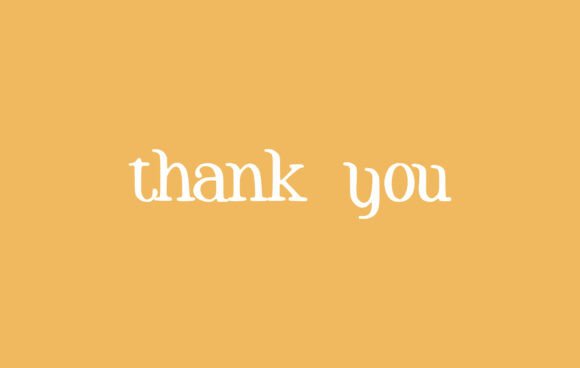
Introducing Zenvector Font: The Ultimate Handwritten Font for Creative Expression
In the world of typography, fonts play a crucial role in conveying emotions, setting tone, and creating visual appeal. Among the numerous fonts available, Zenvector Font stands out as a unique and authentic handwritten font with a romantic touch. Designed to be a true favorite among designers, Zenvector Font has the potential to elevate your creative ideas to new heights. In this article, we’ll explore the features, benefits, and uses of Zenvector Font, and why it’s an excellent addition to your typography collection.
What Makes Zenvector Font Special?
Zenvector Font is an expertly designed handwritten font that boasts a distinctive romantic touch. Its authenticity and uniqueness make it an excellent choice for designers seeking to add a personal touch to their creations. Here are some key features that set Zenvector Font apart:
- Legibility: Zenvector Font is highly legible, making it suitable for both title and body text. Its clear and readable design ensures that your message is conveyed effectively, regardless of the context.
- Romantic Touch: The font’s romantic touch adds a touch of elegance and sophistication to your designs, making it perfect for projects that require a sense of whimsy or nostalgia.
- Versatility: Zenvector Font is incredibly versatile, allowing you to use it for a wide range of design projects, from magazine headlines and social media graphics to branding, wedding invitations, and cards.
Endless Design Possibilities with Zenvector Font
Zenvector Font’s flexibility and charm make it an excellent choice for various design projects. Here are some ideas to get you started:
- Magazine Headlines: Use Zenvector Font to create eye-catching headlines that grab readers’ attention and add a touch of personality to your magazine or publication.
- Social Media Graphics: Add a personal touch to your social media graphics, such as Instagram posts, Facebook covers, and Twitter headers, with Zenvector Font’s unique and romantic style.
- Branding: Establish a strong brand identity with Zenvector Font, perfect for logos, business cards, and marketing materials that require a distinctive and memorable look.
- Wedding Invitations: Make your wedding invitations, save-the-date cards, and wedding stationery truly special with Zenvector Font’s elegant and romantic design.
- Cards and Stationery: Use Zenvector Font to create beautiful and heartfelt cards, letters, and stationery that showcase your personality and style.
- High-Quality: Zenvector Font is designed to deliver high-quality results, ensuring that your designs look professional and polished.
In conclusion, Zenvector Font is an exceptional handwritten font that offers a unique blend of authenticity, legibility, and romance. Its versatility and charm make it an excellent choice for a wide range of design projects, from magazine headlines and social media graphics to branding, wedding invitations, and cards. With Zenvector Font, you can elevate your creative ideas to new heights and create visually stunning designs that leave a lasting impression.